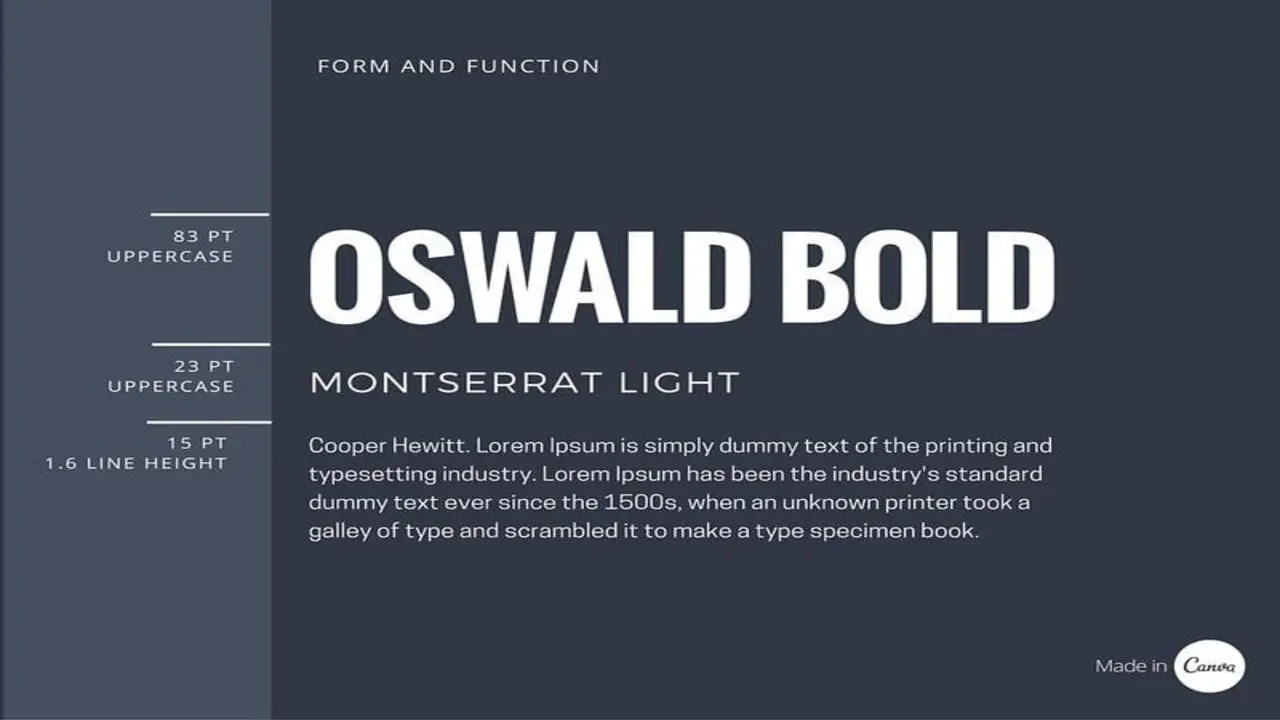
A font style guide is a comprehensive guide that provides instructions on using a brand’s fonts consistently and correctly. It assists designers, developers, and contractors understand the technical use of a brand’s fonts.
The font style guide serves as the primary source of information for designers, covering details such as technical specifications and usage in designing. Here we will explore what a font style guide is and why it’s crucial for your brand identity.
We have also compiled a list of essential tips for choosing the perfect style guide font, from understanding your brand and audience to exploring font combinations and testing your font choices. Lastly, we have curated a list of free fonts you can use for your style guide to make your brand stand out. So, let’s dive in and create a font style guide that best represents your brand.
Why Fonts Matter For Brand Identity
Choosing the right font for your brand is crucial in establishing brand identity. Typography gives meaning to a brand and conveys its values and tone. Carefully selecting fonts that reflect the mood and personality of your brand is vital.
The use of unappealing fonts can reflect badly on the emotional response connected with your brand, hence hampering your brand identity. Selecting 2-3 typefaces distinct from your logotype is essential for creating a recognizable brand.
Ensure you have multiple font weights to maintain a clear text hierarchy within your branding. The choice of font has a subsequent effect on the overall visual identity of the brand. Thus, understanding the purpose and message your brand wants to communicate is crucial while selecting the right font.
How To Choose The Right Style Guide Font For Your Brand
Your brand identity is critical to your business, and choosing the right font can influence its perception. The font sets the tone for your brand and reflects its personality traits. For instance, if your brand is authoritative, you may choose a bold sans-serif font, while if it’s quirky, you may opt for a playful script font.
Consider looking for inspiration from other brands that share similar values. But make sure your font choice doesn’t blend in with your competitors; your fonts must be unique, memorable, and work across different platforms. After all, typography can heavily affect the user’s experience.
Understand Your Brand
When creating a brand style guide, choosing the right font is crucial to creating a strong visual identity. To choose the right font for your brand, it’s important to understand your brand personality. This can be achieved by defining your brand’s values, target audience, and desired perception.
Seeking feedback from trusted individuals can also provide valuable insight into what type of font resonates with your audience. Consistency is key to adopting a strong brand identity, so it’s important to incorporate consistent branding across all mediums.
To ensure that all components of your brand – from voice to colour to design – are aligned with your brand personality, establish 3-4 adjectives that capture your brand’s personality. Select appropriate fonts and typography from there that evoke the desired emotional response.
By choosing the right font for your brand, you can create a memorable and impactful brand identity that resonates with your audience.
Know Your Audience
When choosing the right font for your brand, it’s important to consider a few key factors. First, you’ll want to choose a font that reflects your brand’s personality and values. In addition, it’s important to understand your audience and their preferences before selecting a font.
Another key consideration is legibility and readability. You want to ensure that your chosen font is easy to read and provides a good reading experience for your audience. To achieve this, it can be helpful to study the fundamentals of typography and look up brands that have successfully used fonts to boost their brand identity.
Finally, creating a brand guide with clear guidelines on font usage is important. This will help ensure consistency across all of your branding materials and ensure your brand is easily recognizable. Following these tips, you can choose the right font to boost your brand and connect with your target audience.
Choose An Appropriate Font
When it comes to creating a style guide font for your brand, there are a few key points to consider. First and foremost, it’s important to understand your brand identity and what kind of message you want to convey to your audience. Additionally, looking at the fonts used by other brands you admire can be a helpful source of inspiration.
Merriweather is another popular option, with four weights (Light, Regular, Bold, and Black) and accompanying italic styles.
5.How To Set Up A Font Style Guide For Any Font?